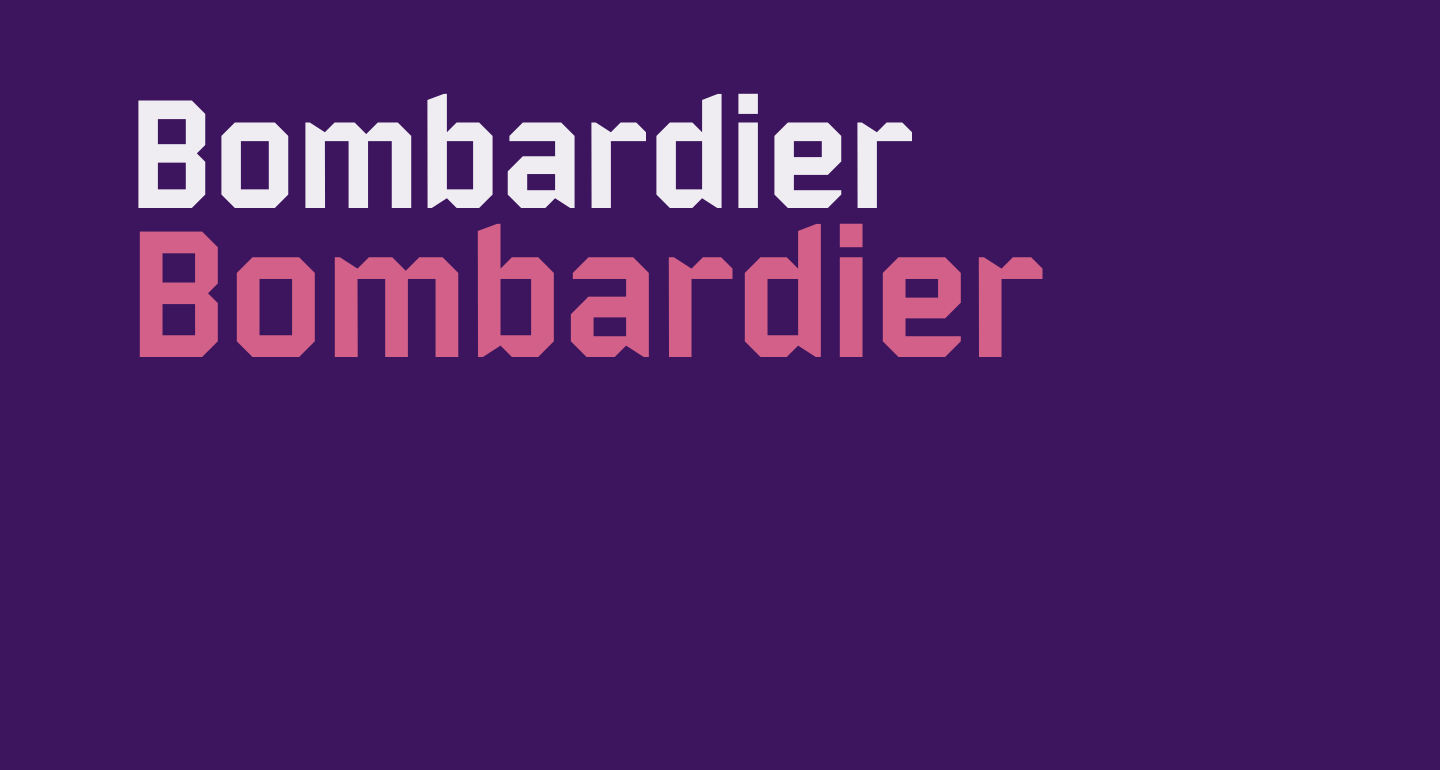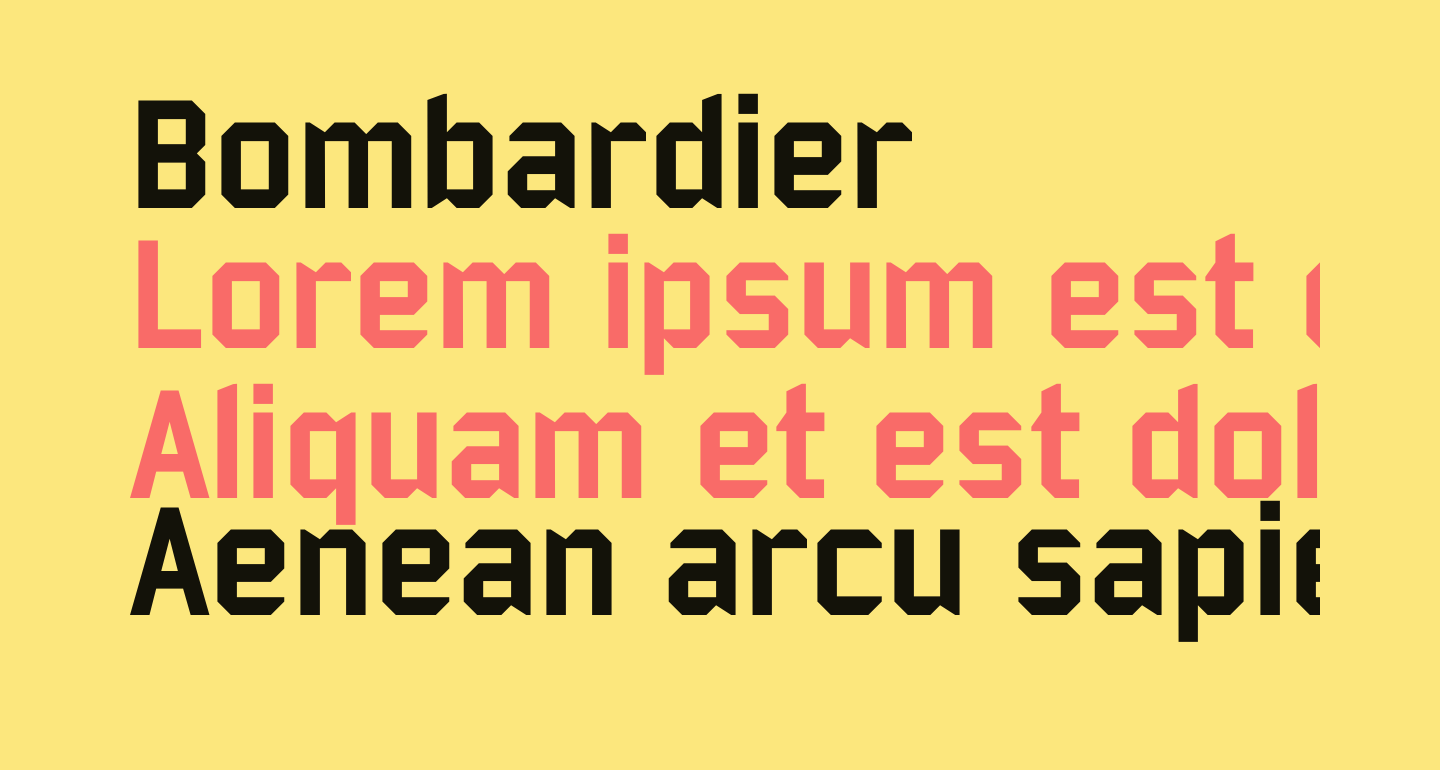
Bombardier Regular Font . View sample text, character map, user rating. The bombardier font has been downloaded 26,183 times. Bombardier features a blocky design. bombardier display font is a unique typeface perfect for headlines, big text, branding, logotypes & display usage. Download free for commercial use. Bombardier font is free for both personel and commercial usages. download bombardier regular for free. In fancy > old school. Bombardier à € by apostrophic labs. bombardier is a sharp display font inspired by the game risk of rain 2 and extended with cyrillic symbols. download and install the bombardier font by apostrophic labs.
download and install the bombardier font by apostrophic labs. Download free for commercial use. View sample text, character map, user rating. download bombardier regular for free. bombardier display font is a unique typeface perfect for headlines, big text, branding, logotypes & display usage. In fancy > old school. bombardier is a sharp display font inspired by the game risk of rain 2 and extended with cyrillic symbols. The bombardier font has been downloaded 26,183 times. Bombardier font is free for both personel and commercial usages. Bombardier à € by apostrophic labs.